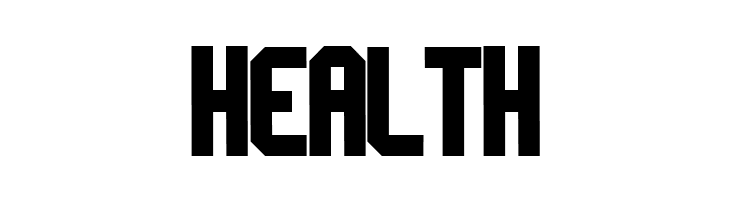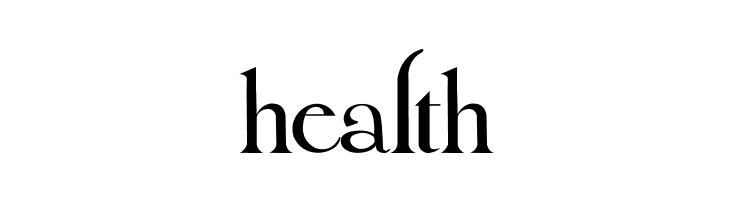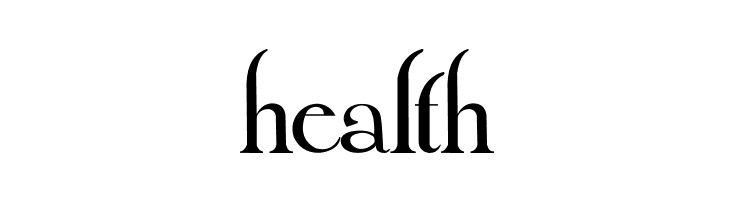
A bold, distressed font with a halftone texture and urban flair.
A classic serif font with elegant strokes and pronounced serifs.
A bold, classic serif font with strong strokes and sharp serifs.
A bold, 3D-effect font with a modern, commanding presence.
A bold, geometric font with a military-inspired, authoritative style.
A bold, angular font with a futuristic and mechanical style.
A bold, angular font with a futuristic and industrial feel.
A decorative serif font with elegant flourishes and a dramatic style.
A decorative and elegant font with classic flourishes.
An elegant and decorative serif font with intricate swirls and bold characters.